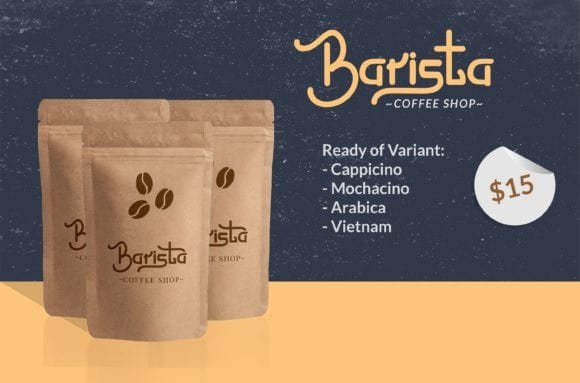
Loristta Script Font
Hello everyone. Loristta Script Font is a super versatile monoline script typeface that includes tons of alternate decorative characters. Give every word in each project it’s own personality with the ability to choose between a variety of characters and create stunning type. It has delicate and classic characters, and it will turn any creative idea into a standout!